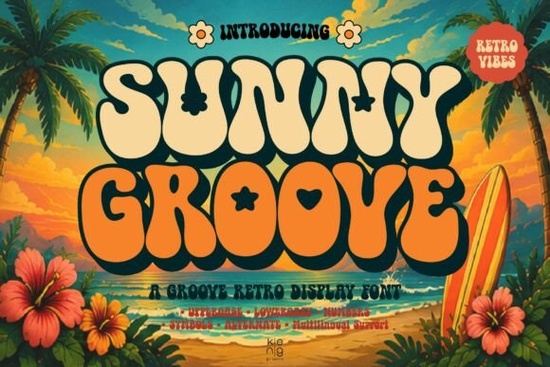
If you're looking for a font that captures the laid-back, carefree spirit of the 70s, Sunny Groove Font is a fantastic choice. This groovy retro display font is all about bold curves, playful shapes, and charming alternate characters, making it perfect for adding a touch of nostalgia and sunny vibes to your designs.
What Makes Sunny Groove Font Special?
Sunny Groove Font stands out with its unique blend of retro charm and modern versatility. The font features uppercase and lowercase letters, numbers, punctuation, and even decorative alternates. These alternates include delightful details like flowers, hearts, and stars, which can add a whimsical touch to your projects.
Perfect for a Variety of Projects
Whether you're designing logos, branding materials, posters, packaging, or social media graphics, Sunny Groove Font has got you covered. Its playful and warm aesthetic makes it especially suitable for summer-themed projects, but it's versatile enough to fit into a wide range of design needs. For instance, if you're working on a print-on-demand project, this font can help you create eye-catching designs that stand out.
How Can I Use Sunny Groove Font in My Designs?
Incorporating Sunny Groove Font into your designs is easy and can add a lot of character. Here are some ideas:
- Logos and Branding: Use the font to create a memorable and unique logo that reflects a fun, retro vibe.
- Posters and Flyers: Add a playful touch to your promotional materials, making them more engaging and visually appealing.
- Apparel Design: Create t-shirts, hats, and other apparel with catchy, retro-inspired text that resonates with your audience.
- Social Media Graphics: Enhance your social media posts with this font to make them stand out and grab attention.
- Packaging Design: Give your product packaging a nostalgic and charming look that customers will love.
Is Sunny Groove Font Easy to Work With?
Absolutely! Sunny Groove Font is designed to be user-friendly. It includes multilingual support, so you can use it in a variety of languages without any issues. The decorative alternates and special characters are also easy to access, allowing you to customize your designs with ease.
How Can I Make the Most of Sunny Groove Font?
To get the most out of Sunny Groove Font, consider the following tips:
- Experiment with Colors: Play around with different color schemes to see what best complements the font's retro vibe. Pastel colors and earth tones often work well.
- Combine with Other Fonts: Pair Sunny Groove Font with a clean, simple sans-serif font to create a balanced and professional look. For example, Notre Font can be a great complementary choice.
- Use Decorative Alternates Wisely: Don't overuse the decorative alternates; instead, use them sparingly to add a special touch to key words or phrases.
- Test on Different Backgrounds: See how the font looks on various backgrounds, from solid colors to patterns, to find the best match for your design.
Final Thoughts
Sunny Groove Font is a wonderful addition to any designer's toolkit. Its groovy, retro style and versatile features make it a go-to choice for creating designs that are both nostalgic and modern. Whether you're a seasoned designer or a creative hobbyist, this font can help you bring your projects to life with a touch of 70s charm.